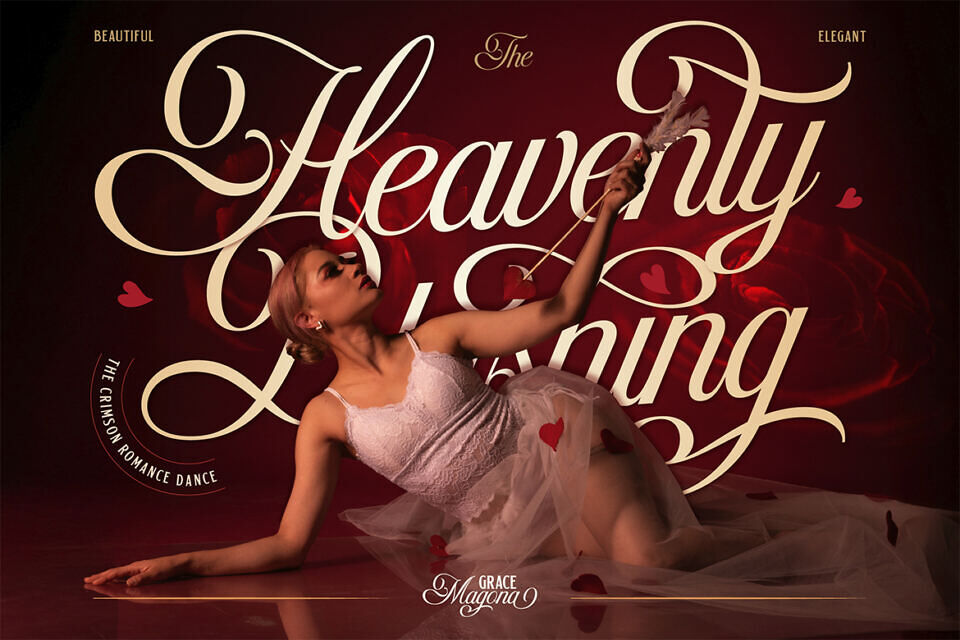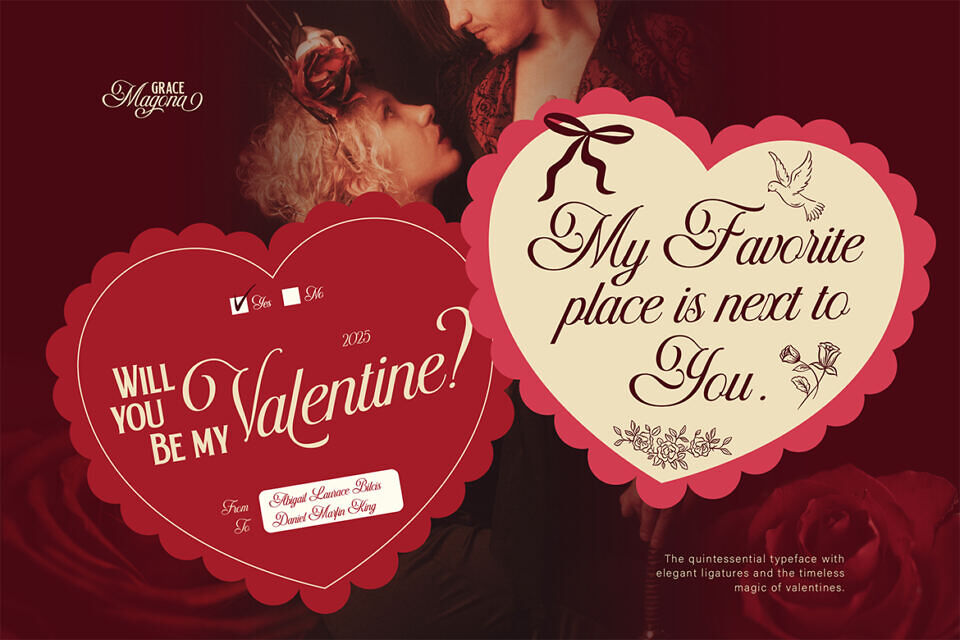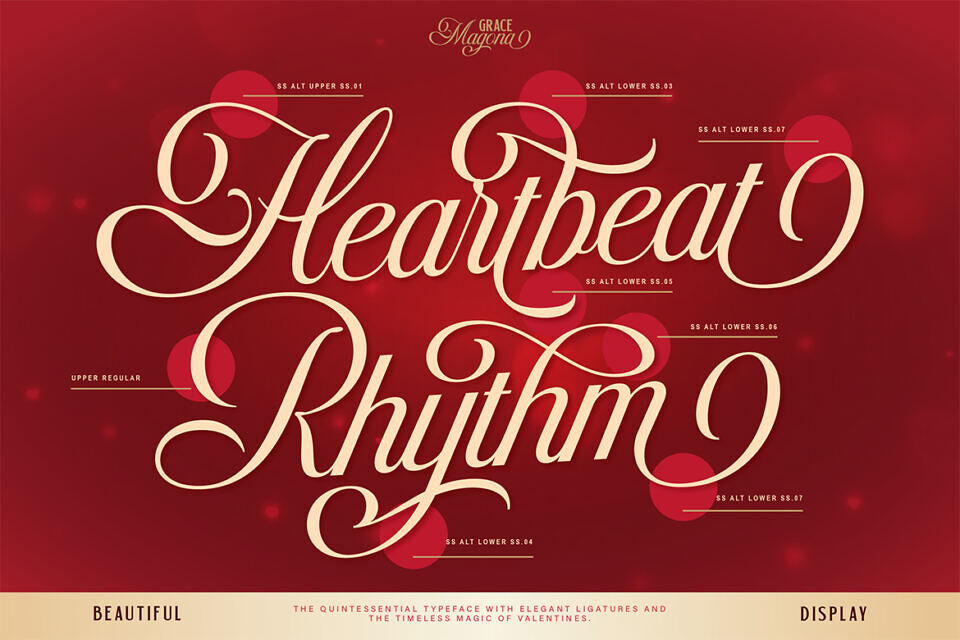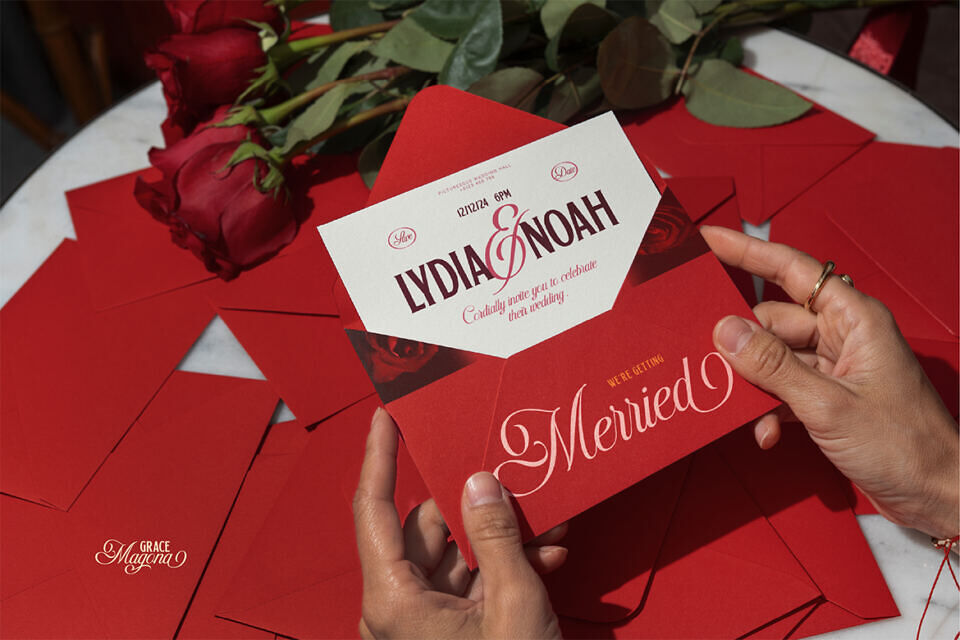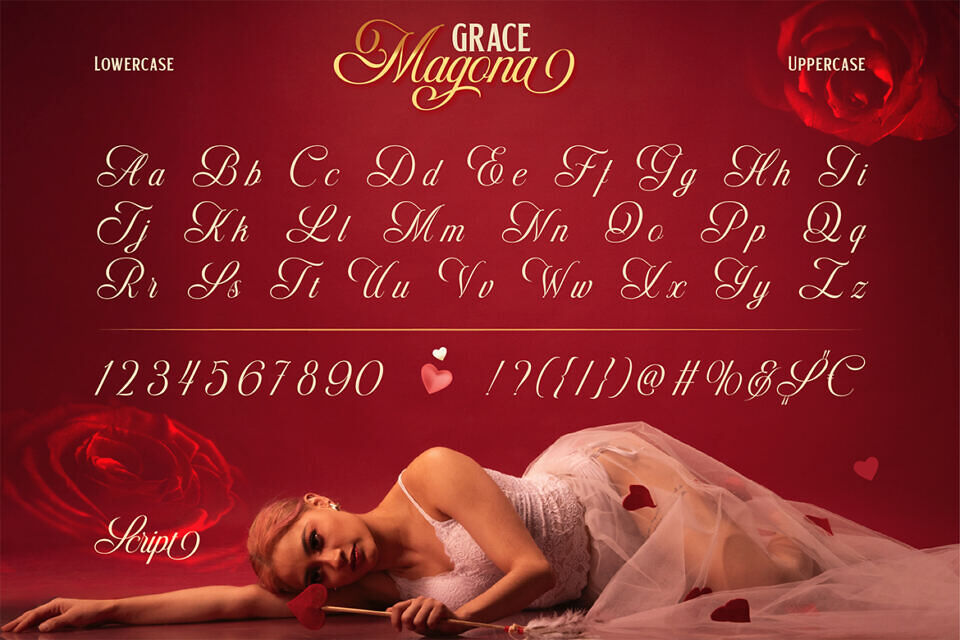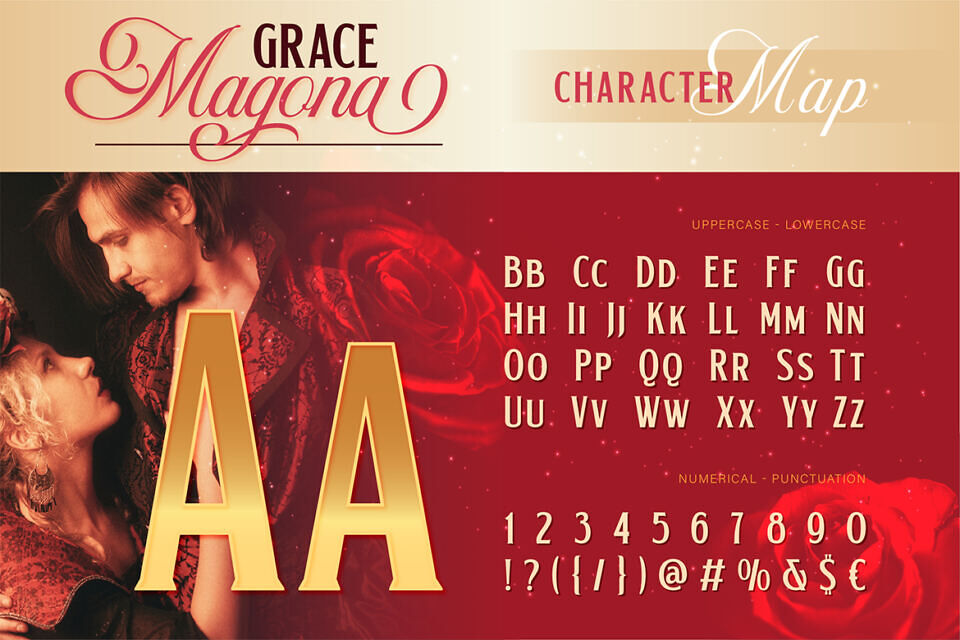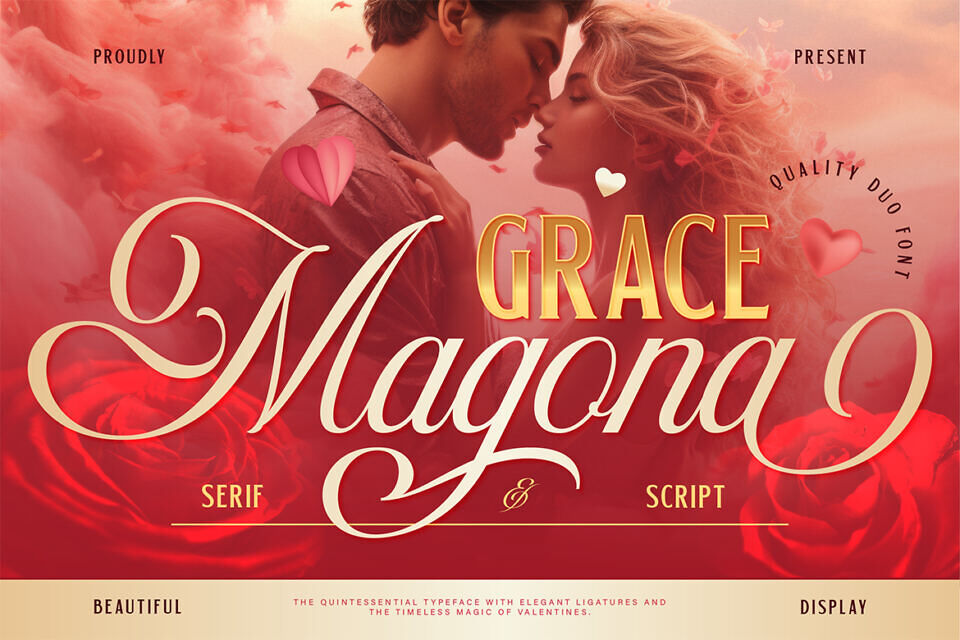
Grace Magona Font
Grace Magona is a romantic duo font that blends sensual curves with elegant sophistication. Featuring a bold, luxurious serif paired with a soft, seductive script, this typeface brings a warm, intimate energy to every design.
The serif style delivers confidence and classic charm, while the script flows with silky strokes and passionate movement—creating the perfect harmony for love-themed visuals, beauty branding, wedding designs, perfume packaging, and editorial layouts.